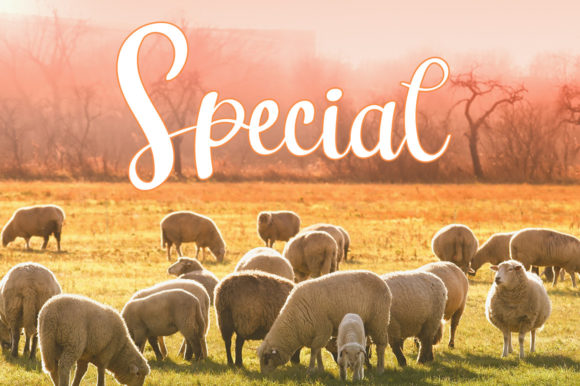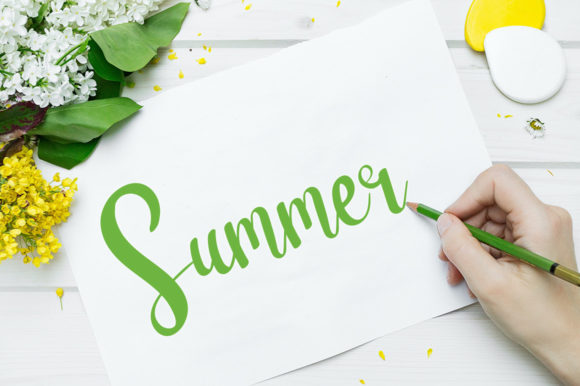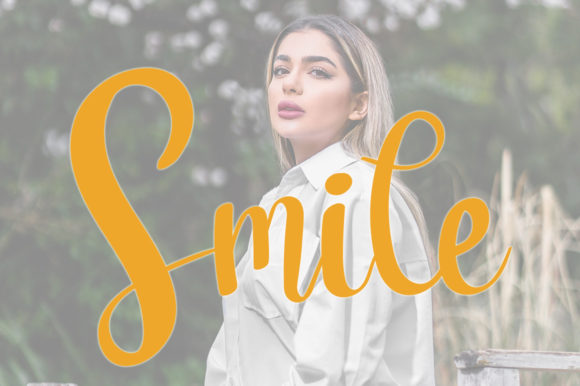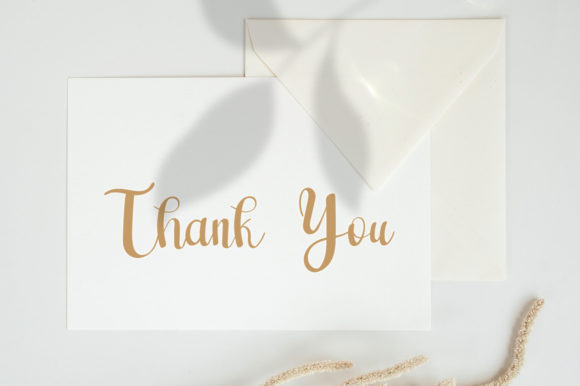
Introducing Farmhouse Font: A Unique and Elegant Handwritten Style
Are you a designer or crafter looking for a font that adds a personal touch to your designs? Look no further than Farmhouse Font, a beautiful and elegant handwritten font that’s perfect for a variety of creative projects. In this article, we’ll take a closer look at Farmhouse Font, its features, and how you can use it to elevate your designs.
Farmhouse Font is a unique and elegant handwritten font that’s designed to bring a personal touch to your designs. Its beautiful, flowing script is perfect for creating wedding invitations, thank you cards, weddings, greeting cards, logos, and more. With its classic and sophisticated style, Farmhouse Font is sure to impress your audience and leave a lasting impression.
Features of Farmhouse Font
So, what makes Farmhouse Font so special? Here are just a few of its key features:
- Unique and Elegant Design: Farmhouse Font has a distinctive and elegant design that’s perfect for creating sophisticated and stylish designs.
- Handwritten Style: With its handwritten style, Farmhouse Font adds a personal touch to your designs, making them stand out from the crowd.
- Versatile: Farmhouse Font is versatile and can be used for a variety of design projects, from wedding invitations to logos.
- Easy to Read: Despite its elegant design, Farmhouse Font is easy to read, making it perfect for body text and headings.
Uses of Farmhouse Font
Farmhouse Font is a versatile font that can be used for a wide range of design projects, including:
- Wedding Invitations: Add a touch of elegance and sophistication to your wedding invitations with Farmhouse Font.
- Thank You Cards: Create beautiful and heartfelt thank you cards with Farmhouse Font.
- Weddings: Use Farmhouse Font to create stunning wedding signs, menus, and programs.
- Greeting Cards: Create personalized and stylish greeting cards for birthdays, holidays, and more.
- Logos: Use Farmhouse Font to create a unique and memorable logo for your business or brand.
Here are a few tips for getting the most out of Farmhouse Font:
- Pair it with Other Fonts: Experiment with pairing Farmhouse Font with other fonts to create a unique and interesting design.
- Use it for Headings: Use Farmhouse Font for headings and titles to add a touch of elegance and sophistication to your designs.
Farmhouse Font is a beautiful and elegant handwritten font that’s perfect for designers and crafters looking to add a personal touch to their designs. With its unique and elegant design, versatility, and ease of use, Farmhouse Font is sure to become a favorite in your font collection. So why not give it a try and see how it can elevate your designs?
Whether you’re a professional designer or a crafter looking for a unique font for your next project, Farmhouse Font is a great choice. So why not give it a try and see how it can add a touch of elegance and sophistication to your designs?